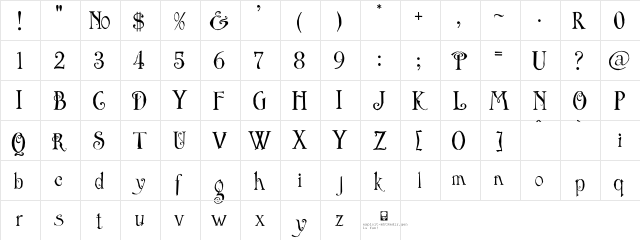
LHF English Rose Regular
| Foundry | Dave Smith & Letterhead Fonts |
| Designer | Dave Smith & Letterhead Fonts |
Design Context for LHF English Rose Typeface
LHF English Rose is a composed and adaptable typeface that performs quietly and consistently across a wide range of design contexts.